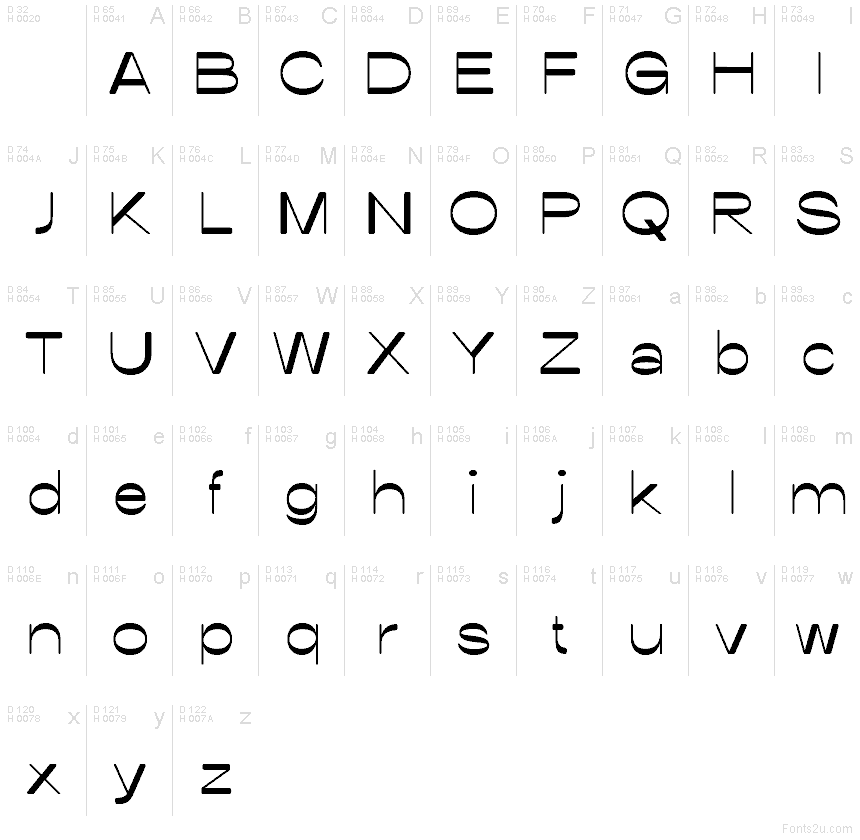
RaelyRounded-Regular Demo
Raely Rounded font is an expanded sans serif font designed by Craft Supply Co. This modern, sleek typeface adopts a geometric structure with a soft minimalistic feel suitable for different design projects that require both clarity and the ability to stand-out. The futuristic theme further enhances the creativity aspect as letters are easily readable due to the expanded structure.
Creating exceptional headings, titles, and quotes is easier than ever when relying on this free sans serif font. Projects like magazines, packaging designs, website layouts, UX/UI designs, branding projects can all benefit from this elegant edition. Use in logotypes business cards invites product packages etc.
Raely Rounded Demo